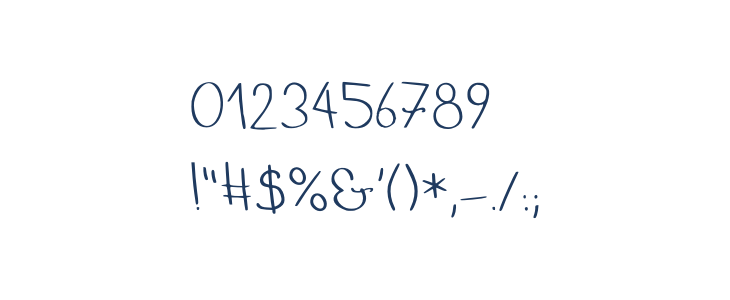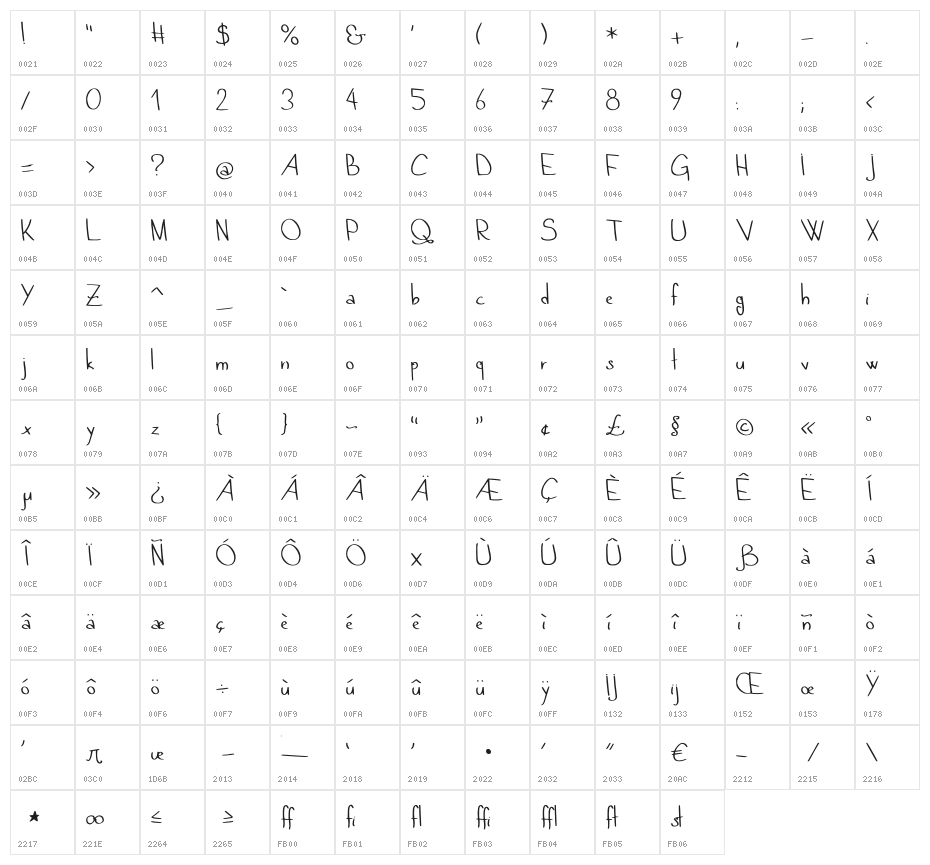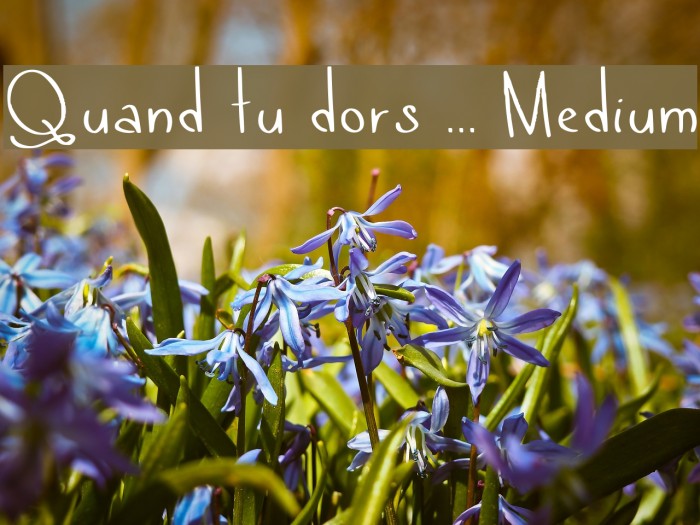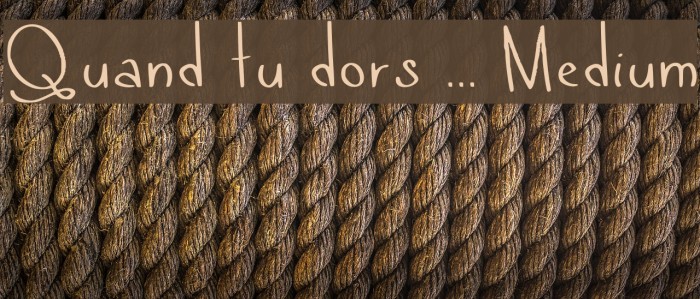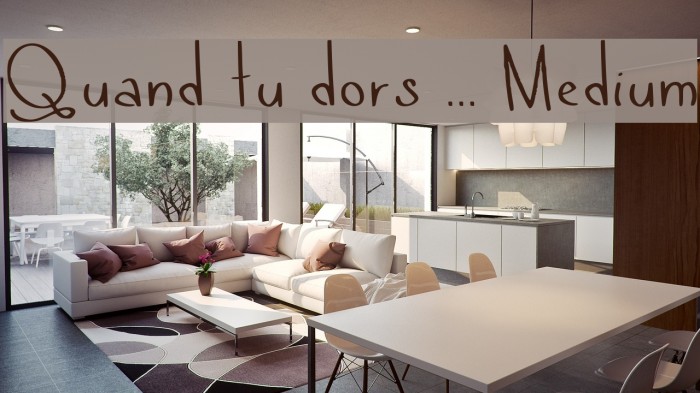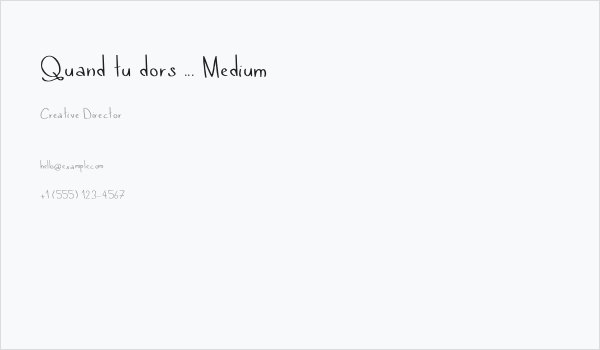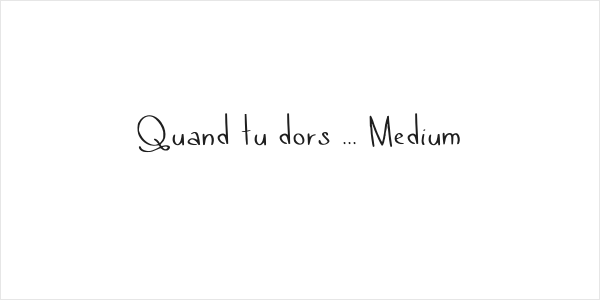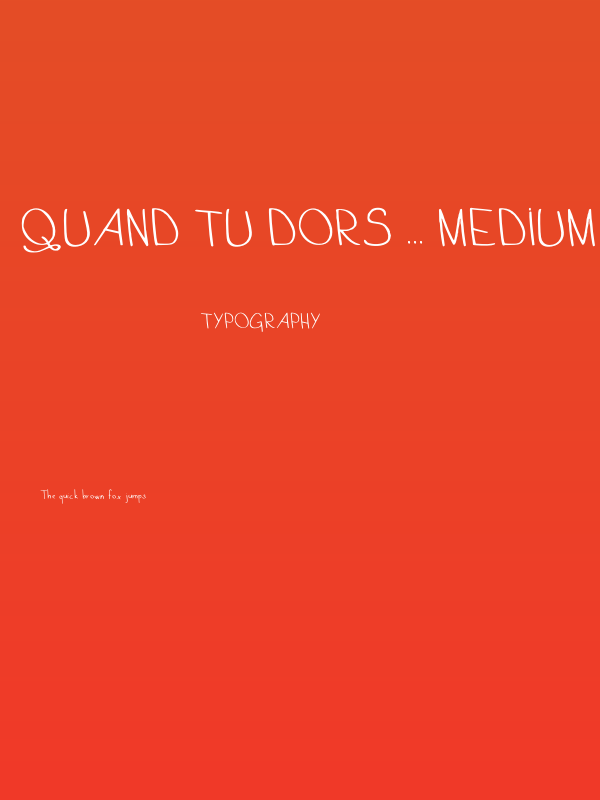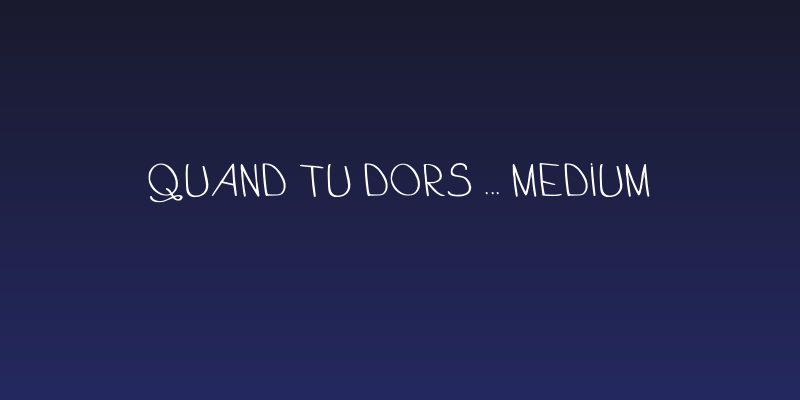
Quand tu dors ... Medium Font
Quand tu dors ... Medium Description
This font features a playful and whimsical style, characterized by its handwritten appearance. The letters have a casual, informal look with slight variations in stroke width, giving it a natural and organic feel. The uppercase letters are tall and slightly narrow, while the lowercase letters maintain a consistent flow with rounded edges. The numerals are clear and easy to read, matching the overall playful aesthetic. Special characters are included, maintaining the same lively and approachable style. This font is perfect for projects that require a personal touch or a friendly, inviting tone.
| Overall Style | Playful, Casual |
| Proposed Projects | Ideal for greeting cards, children's books, personal blogs, and creative branding. |